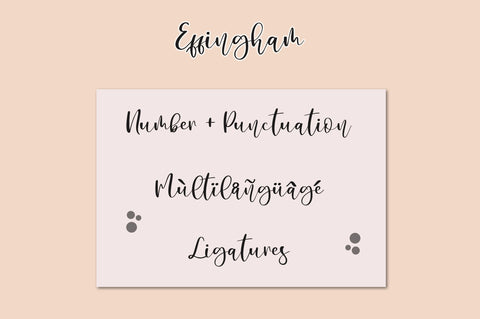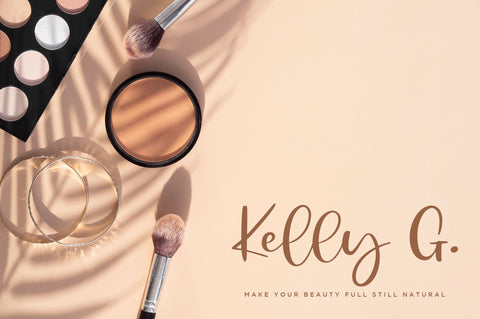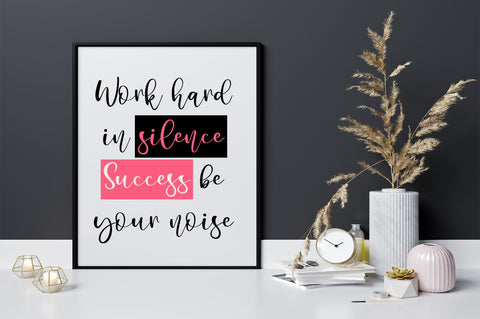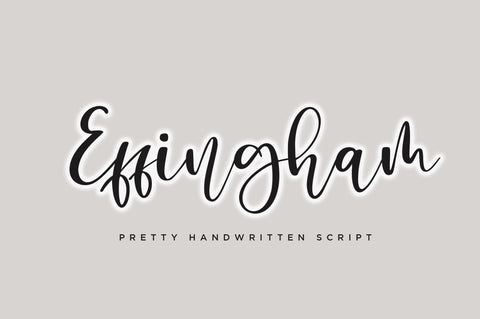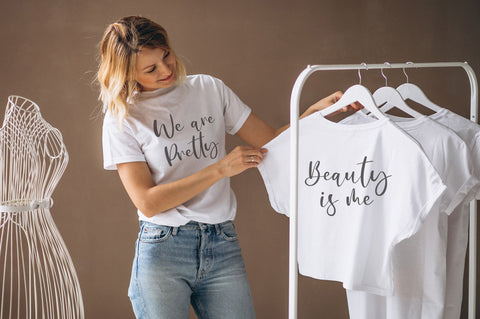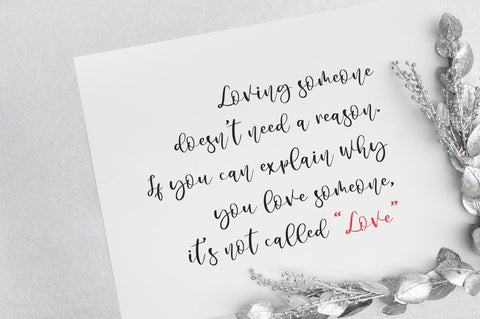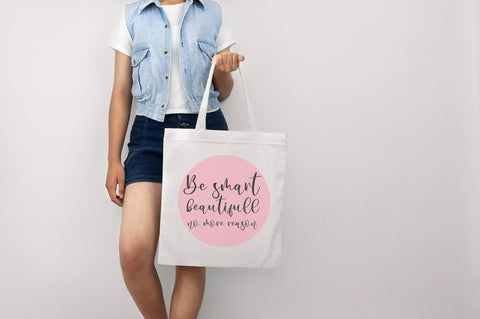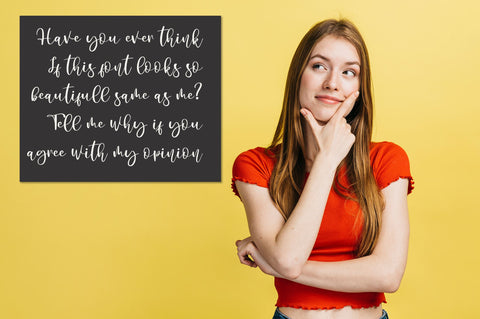
Effingham a Cute Bouncy Handwritten Font
Introducing the bouncy handwritten "Effingham" Script Font! If you are needing a touch of casual modern calligraphy for your designs, this font was created for you!